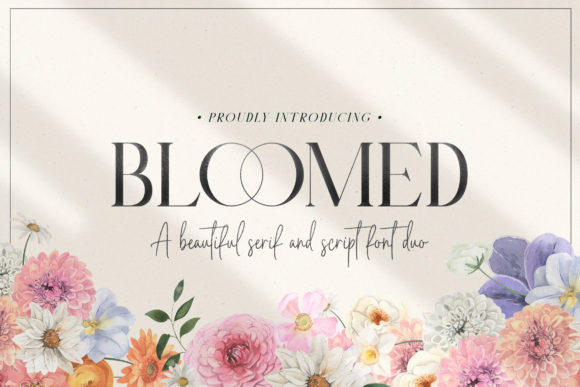
Discover the Bloomed Duo Font for Chic, Cheerful Designs
Imagine a font pairing that feels like a perfectly styled outfit—each piece distinct, yet together they create something effortlessly cohesive and charming. That's the magic of the Bloomed Duo typeface. This premium font consists of two complementary designs, crafted to work in harmony or stand alone, bringing a chic and cheerful touch to any creative project. Whether you're designing a logo, crafting social media graphics, or packaging a product, this font duo offers a versatile foundation for modern typography.
What Makes Bloomed Duo Special?
At its core, Bloomed Duo is a creative font bundle designed for flexibility. It typically includes a stylish serif or sans serif paired with a flowing script or handwritten font. This combination allows designers to create instant visual hierarchy and interest. The serif component often provides structure and readability for body text or headlines, while the script adds a personal, elegant flair for accents, names, or quotes. Because the fonts are designed to complement each other, you save time guessing about font pairing and can focus on the creative work itself.
A key feature that enhances its usability is that this font is PUA encoded. This means every glyph, swash, and stylistic alternate is easily accessible through standard software, giving you full creative control without needing advanced design skills. You can effortlessly add those beautiful decorative touches to make your work stand out.
Practical Uses for Every Creator
The true value of a well-designed typeface like Bloomed Duo lies in its application. It's a versatile design asset that can elevate numerous projects. Consider using it for:
- Brand Identity & Logo Design: Create a memorable logo that combines a professional serif with a personal script signature. This duo helps establish a brand that feels both polished and approachable.
- Packaging & Product Design: Add a premium, artisanal feel to product labels, boxes, and tags. The cheerful script is perfect for highlighting product names or special features.
- Editorial & Web Design: Use the clean font for article headings and the script for pull quotes or section dividers, adding visual interest to magazines, blogs, and websites.
- Invitations & Greeting Cards: The natural, handwritten quality is ideal for wedding invitations, event announcements, and heartfelt cards, lending a personal and elegant touch.
- Social Media & Poster Design: Craft eye-catching graphics for Instagram, Pinterest, or promotional posters. The font pairing ensures your message is both readable and visually engaging.
To get the most out of a font download like Bloomed Duo, keep a few practical tips in mind. First, always consider the mood of your project. This font leans towards a chic, cheerful, and somewhat elegant style, making it perfect for lifestyle, beauty, fashion, and wedding-related content. It might be less suitable for ultra-corporate or technical subjects.
Ultimately, the right typeface does more than just display words—it communicates personality and builds recognition. A cohesive font pairing like Bloomed Duo helps create visual consistency across all your materials, making your designs look more professional and thoughtfully crafted. By choosing a font bundle that offers both style and function, you equip yourself with a powerful tool to bring your creative visions to life with confidence and polish.